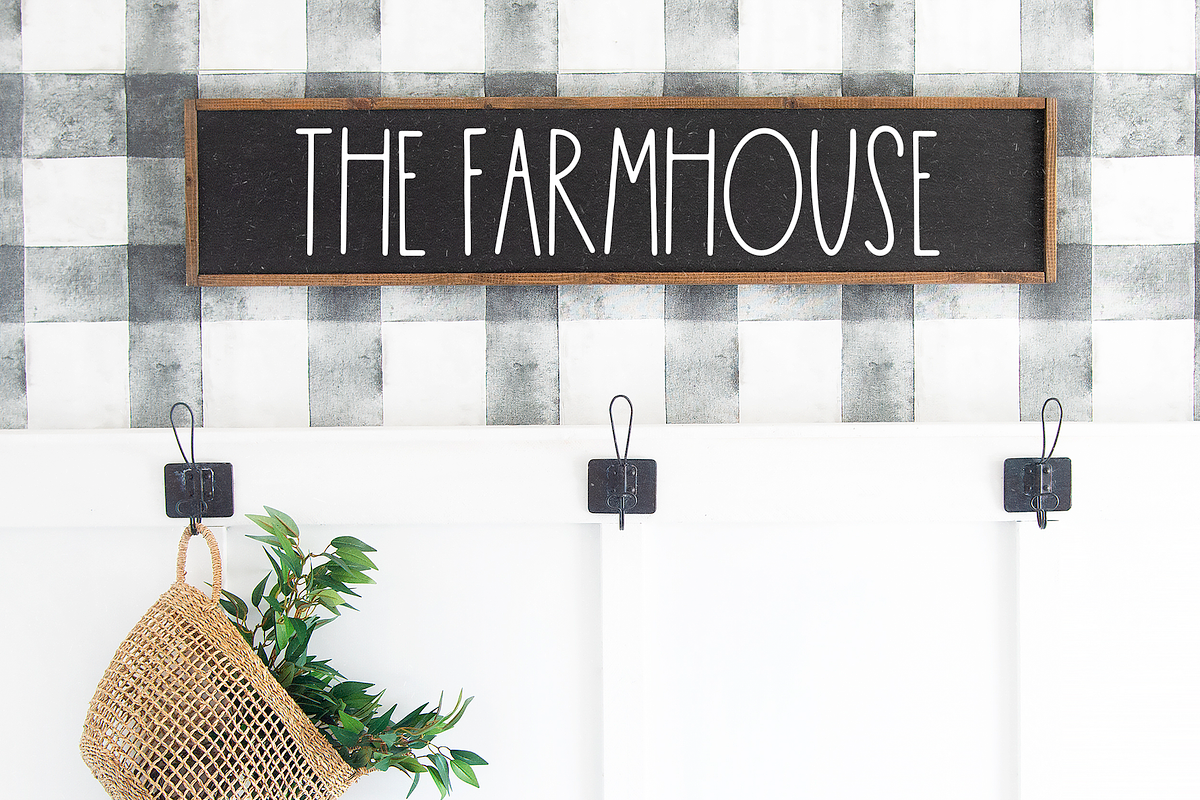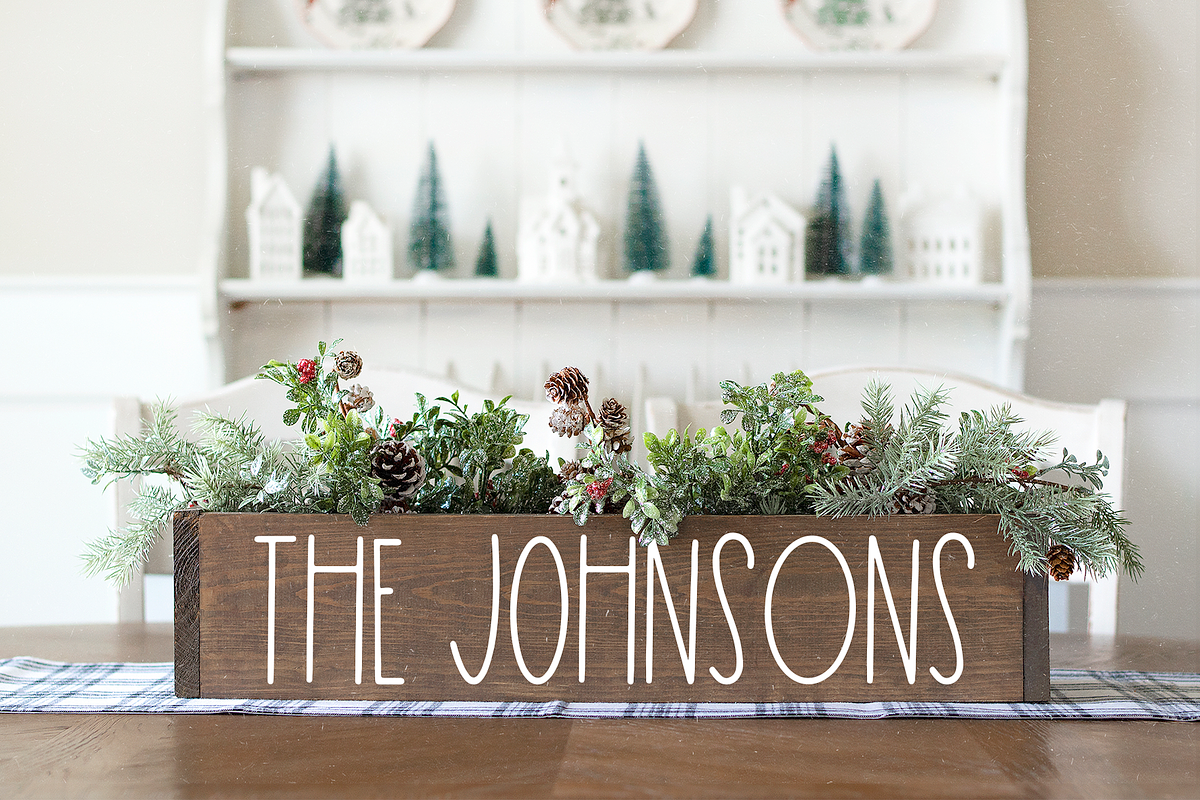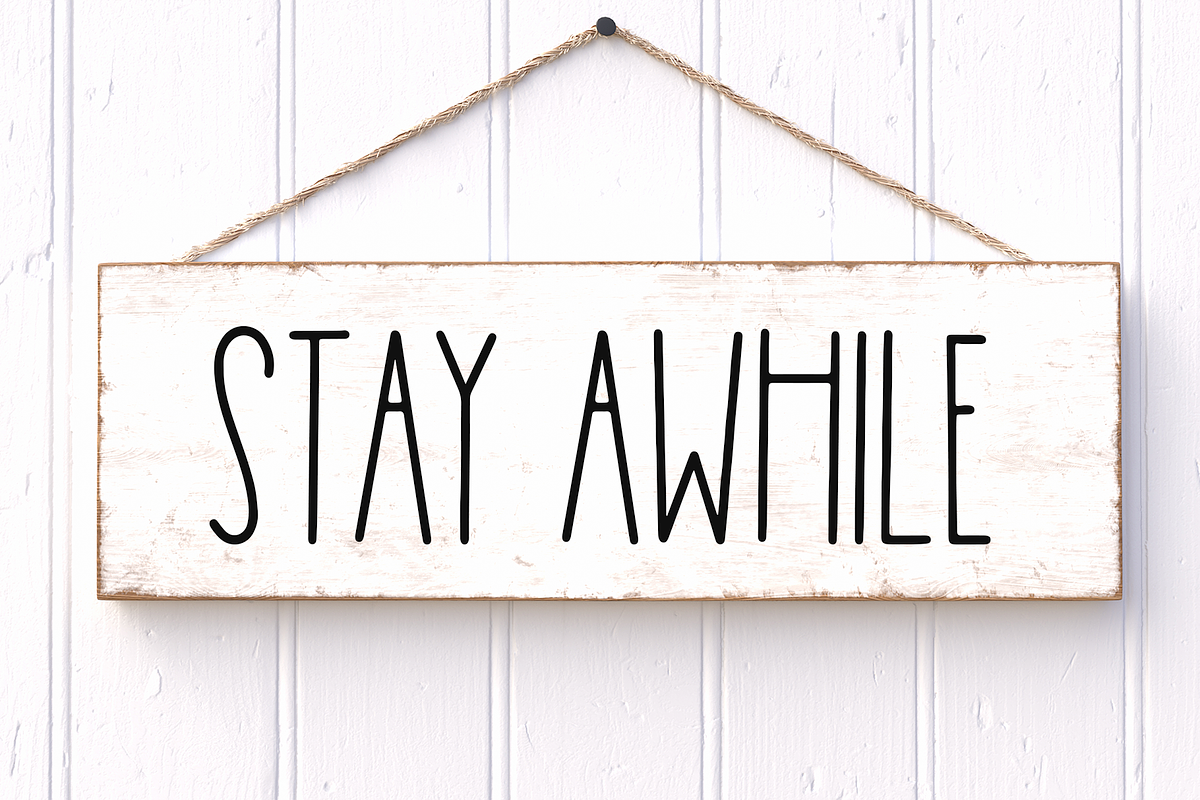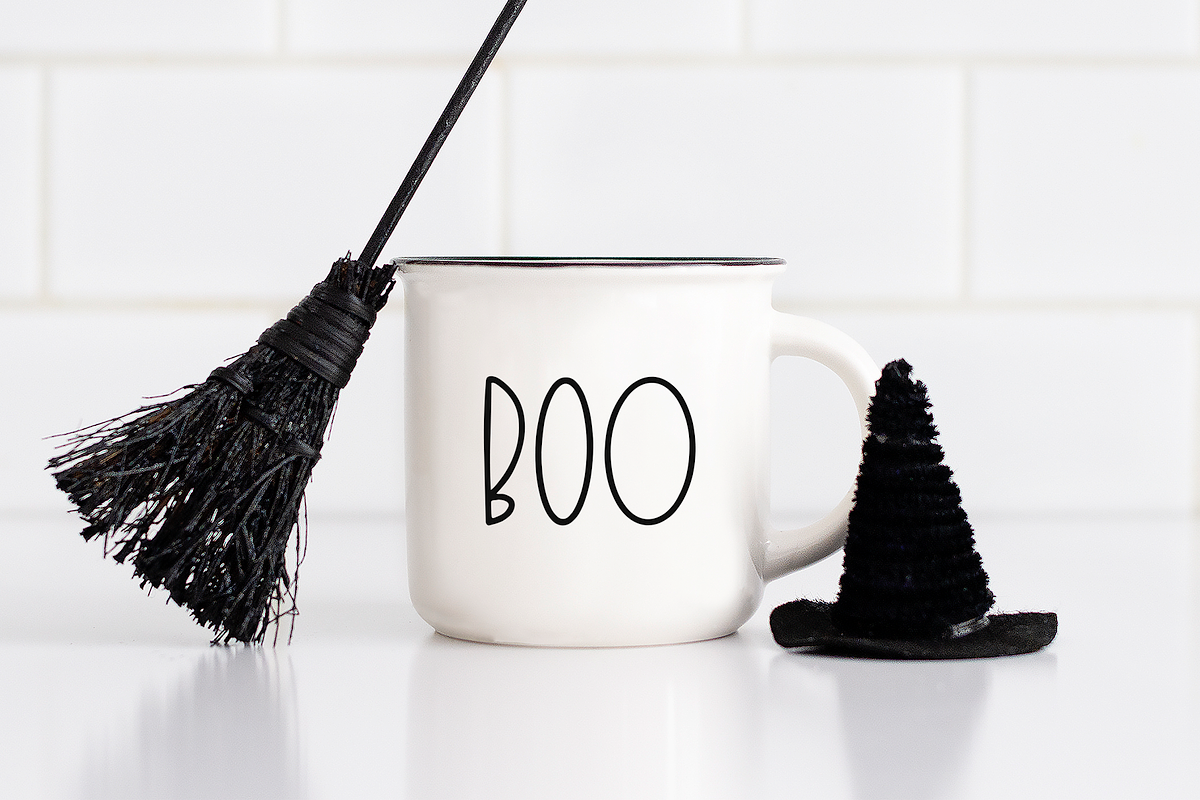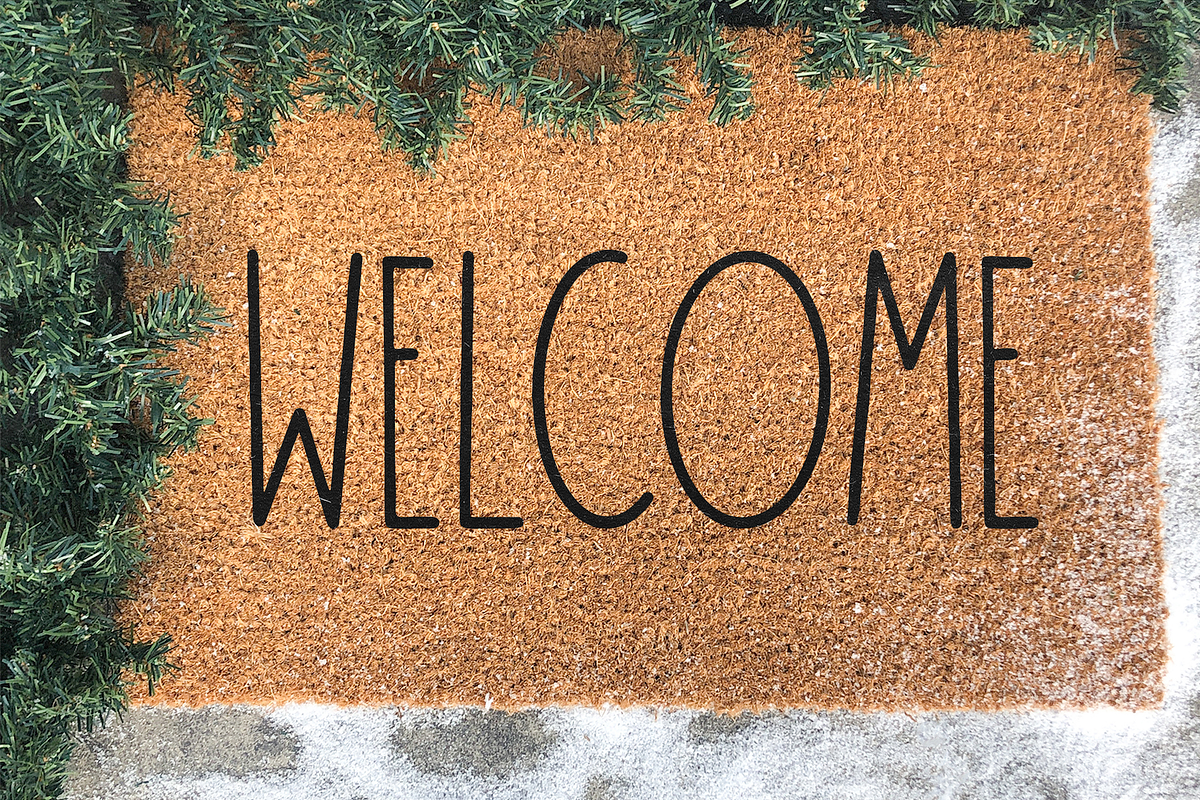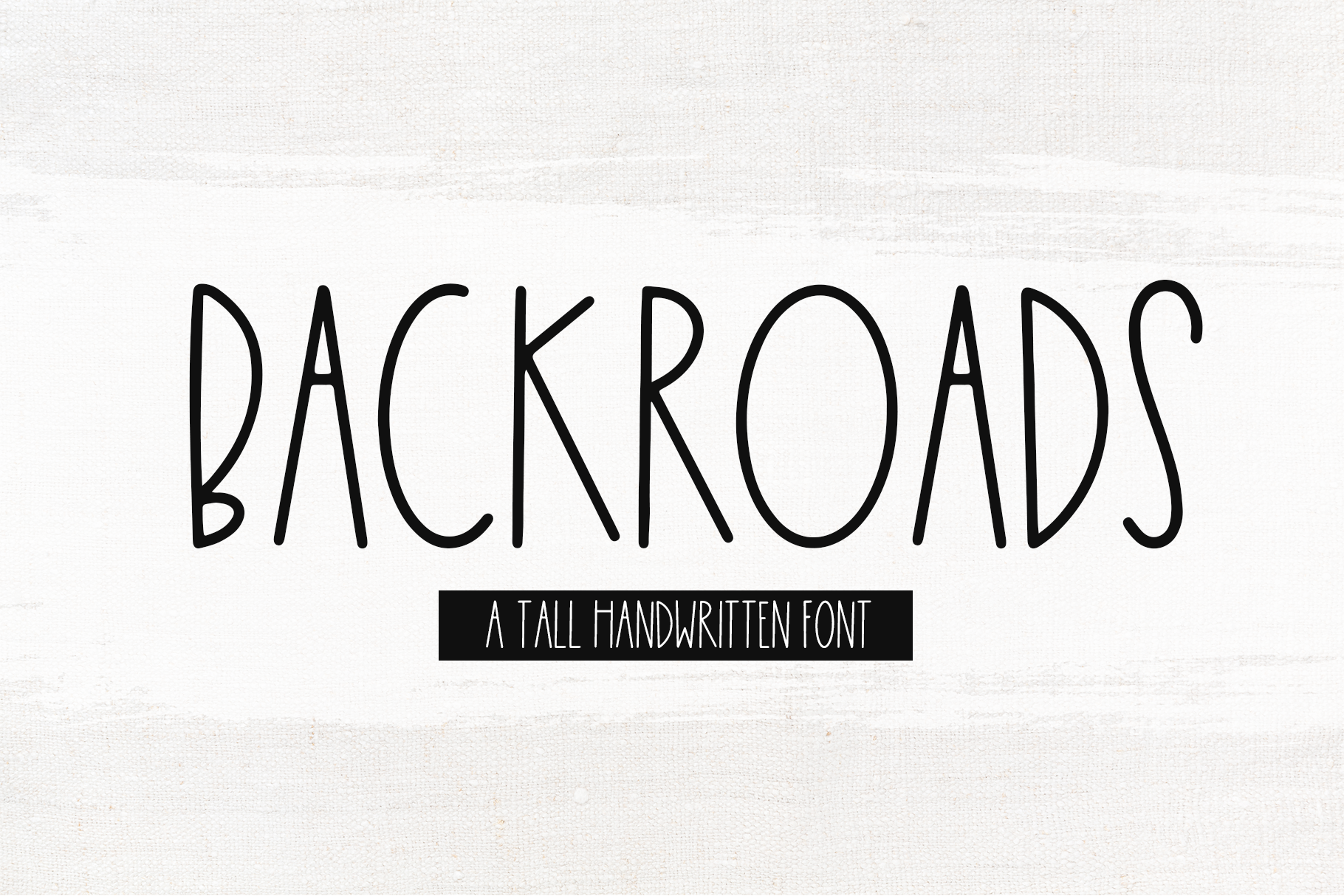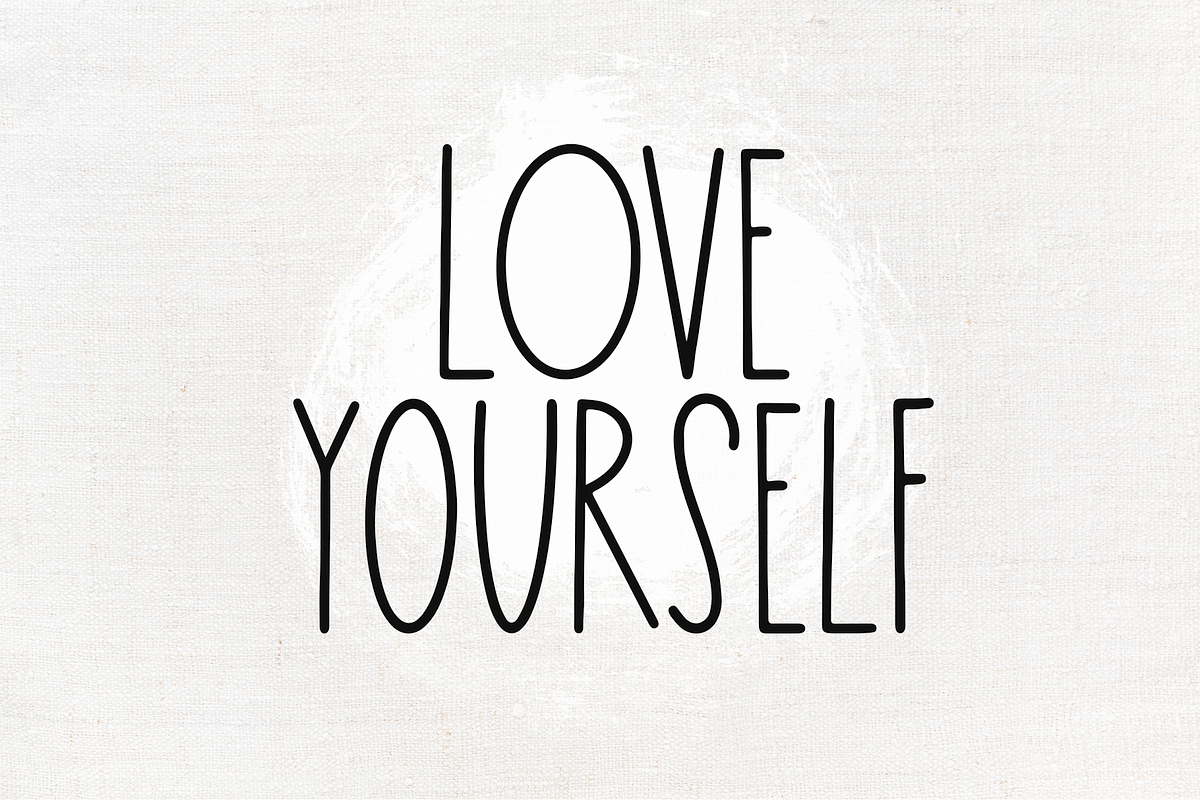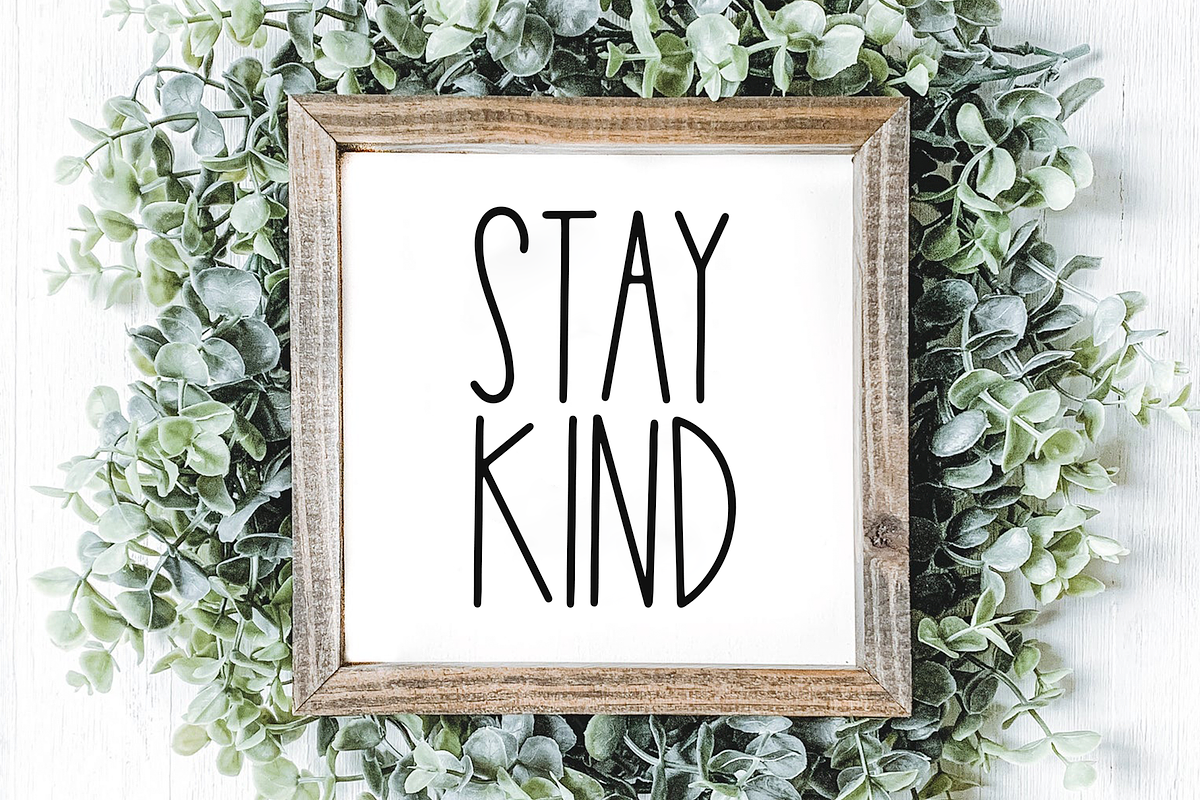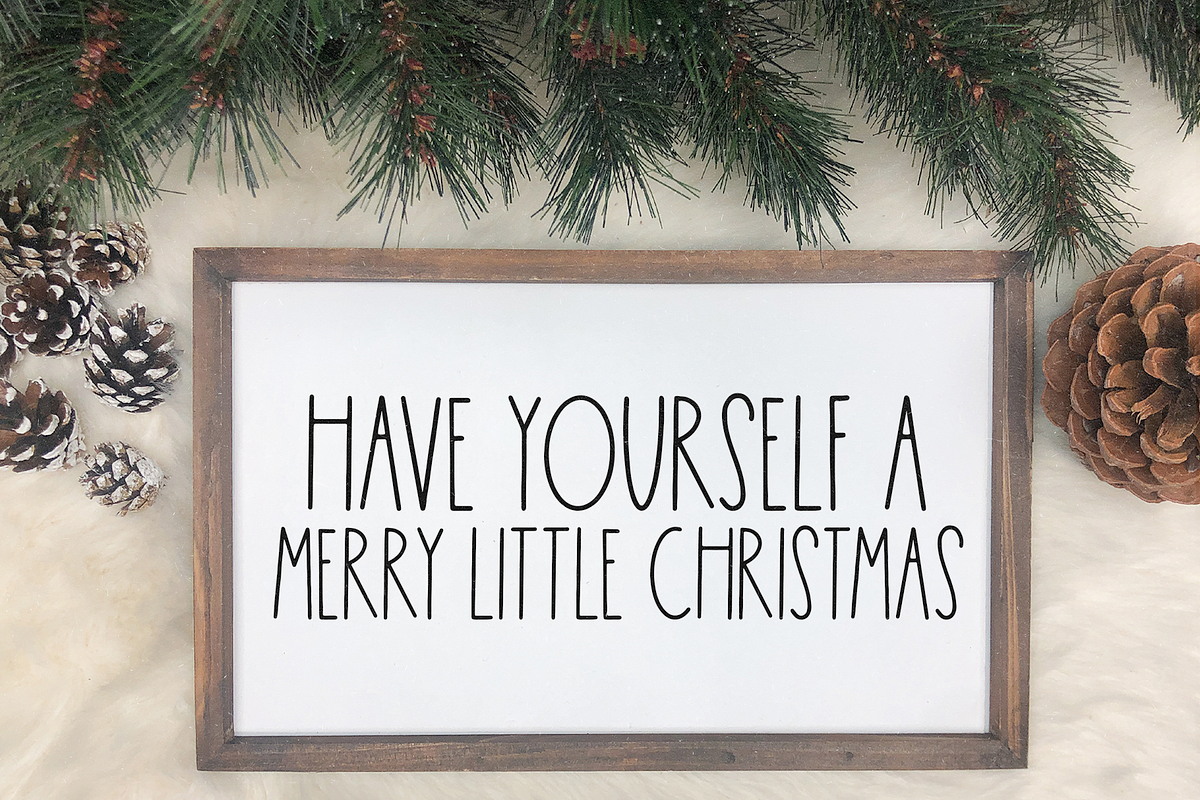
Backroads | Tall & Skinny Font
Backroads is a tall and skinny handwritten font.
This font is perfect for all of your farmhouse designs, cricut projects, svg files, mugs, shirts and more!